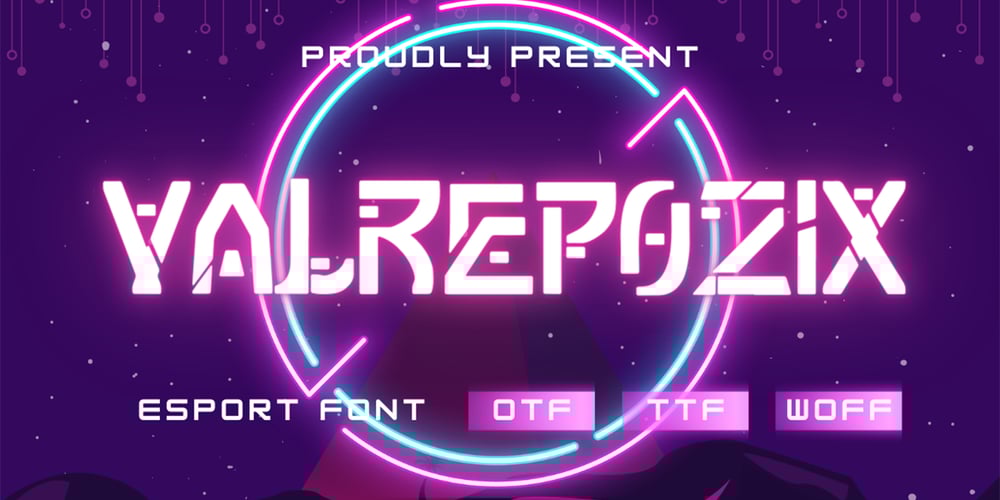
Valrepozix Font Family was designed by Dhimas Habibie and published by Yumnacreative. Valrepozix contains 1 styles and family package options. Introducing **Valrepozix – Esport Font*This Font is a delicate, elegant, and flowing handwritten font. It has a beautiful and well as unique blend of ligatures a letter, so the authors compose it with a little swirly embedding so that a modern font is formed and ready to make a statement by adding an elegant and unique flair to your next design project. Add it to your most creative ideas and notice how it makes them come alive!This Font can be used for various purposes such as Magazine Title, Posters, Logos, T-Shirt, Sub Title, Business cards, Magazines, Book Covers, Wedding Invitations, Templates Instagram Story Post, Greeting Cards, Quotes, etc.**FEATURES**- Uppercase and Lowercase letters- Numbering and Punctuation- Multilingual Support- Works on PC or Mac- Simple Installation- Support Adobe Illustrator, Adobe Photoshop, and Adobe InDesign, also works on Microsoft WordHope you Like it.Thanks.